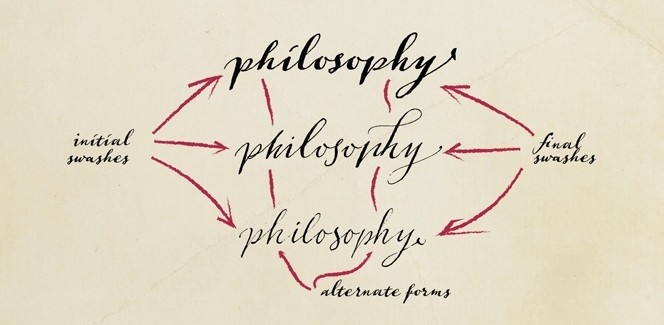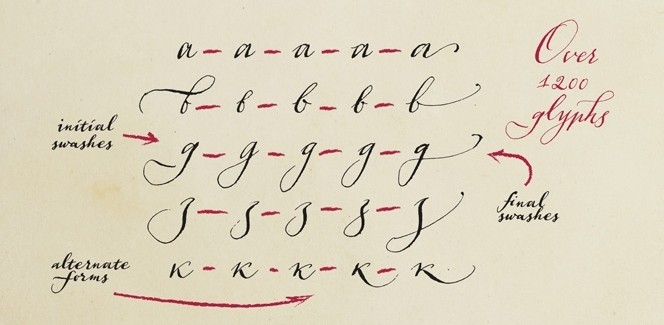
Aphrosine
Aphrosine typeface is the new and very interesting offer by Paratype. It has somewhat of a dual nature. It is clear that it has its roots in the fine art of calligraphy but at the same time lacks the seriousness and ultimate dedication it requires. On the contrary – it has a perky and playful grit. In fact, to best understand the nature of this font we should mention that it is named after a very odd and eccentric character from the children book “The secret of the ginger cat” by Sergey Task. Aphrosine is a kind hearted witch particularly interested in writing letters. The font is the same – it has mild and joyful appearance mixed with a little strictness. Thus, the typeface is extremely suitable for any projects that require personal approach and will add strong individual taste to any work.
Aphrosine font family consists of three weights – Light, Regular and Bold. Interestingly, their glyphs do not match perfectly each other as different nibs were used for every separate style. Plenty of OpenType features and alternatives are supplied with the idea to make the typeface look like real handwriting. Special attention is to be paid to the beautiful initial and final swashes that will immediately catch your attention.
Aphrosine font family is designed by the Russian designers Alexandra Korolkova and Alexander Lubovenko. It is released by the well established Moscow based ParaType foundry – one of the biggest in Russia. It has a long history, dating back to 1989. All these years the foundry has supplied the public with high quality fonts covering wide range of languages. The ParaType designers are unsurpassed in their work with Cyrillic and particularly when it comes to reviving old Russian specimens. Here you can assess some of their projects: Aelita, Yefimov Serif, Stem, Vaccine Sans, Journal Sans New.